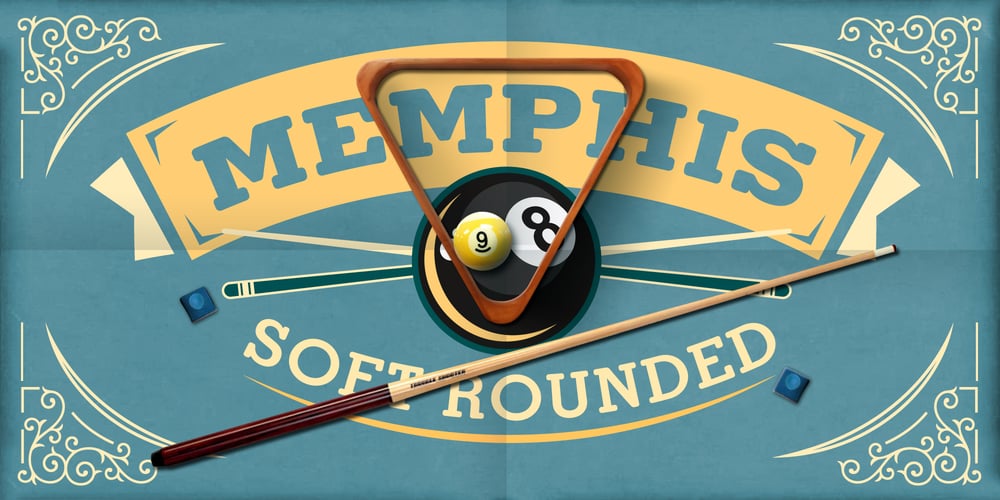
Memphis Soft Rounded Font Family was designed by Rudolf Wolf, Linotype Design Studio and published by Linotype. Memphis Soft Rounded contains 3 styles and family package options. Because of the geometric basis of its forms, Memphis is often thought of as a font for technical fields, making a rational, purposeful impression. This emphasis on objectivity is well-suited to technical texts, but Memphis is appropriate for any text which should exhibit a clear, neutral character. Some weights are available as soft rounded versions.